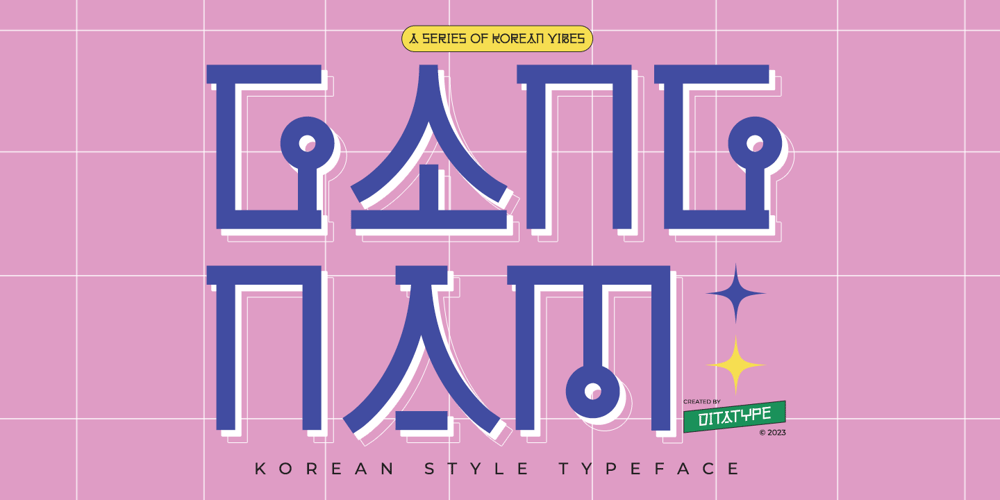
Gangnam
Gangnam font
Gangnam Font Family was designed by Donis Miftahudin and published by Ditatype. Gangnam contains 1 styles and family package options. Gangnam is a captivating display font that dances to its own rhythm, embodying the spirit of the vibrant Gangnam district. Gangnam strikes the perfect balance between subtlety and impact, with a weight that is not bold, allowing the Korean-inspired letterforms to take center stage.The characters in Gangnam showcase a unique Korean touch, capturing the essence of the dynamic and stylish district. The large letters, while not bold, maintain a visible presence, creating an overall design that is both graceful and attention-grabbing. Gangnam is not just a font; it’s a visual journey through the eclectic streets of Gangnam. In addition, enjoy the features here.Features: Alternates Ligature Multilingual Supports PUA Encoded Numerals and Punctuations The Korean-inspired design ensures that Gangnam infuses a sense of style and cultural authenticity into any project. Gangnam fits in headlines, logos, posters, flyers, branding materials, greeting cards, print media, editorial layouts, and many more designs. Find out more ways to use this font by taking a look at the font preview.Thanks for purchasing our fonts. Hopefully, you have a great time using our font. Feel free to contact us anytime for further information or when you have trouble with the font. Thanks a lot and happy designing.